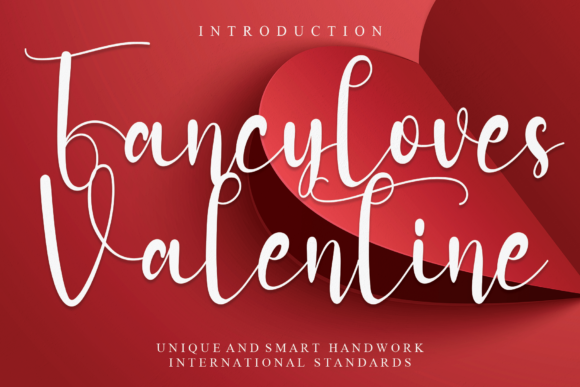
Unlock the Magic of Your Designs with the Fancyloves Valentine Font
You know that moment when you’re working on a project, and everything just clicks into place? The colors, the textures, the fonts – they all come together in perfect harmony. That’s exactly what happens when you add the Fancyloves Valentine Font to your design. This spectacular handwritten font is incredibly versatile, making it the perfect addition to any project.
Whether you’re a seasoned designer or just starting out, the Fancyloves Valentine Font is a valuable tool in your creative arsenal. Its unique, handwritten style adds a touch of elegance and sophistication to any design, elevating it to new heights. By incorporating this font into your work, you’ll be able to bring your ideas to life in a way that’s both beautiful and effective.
Fancyloves Valentine Font Key Features
- Font Family: Fancyloves Valentine – a unique, hand-drawn script font designed specifically for Valentine’s Day and romantic occasions.
- Character Set: Includes a wide range of characters, including uppercase and lowercase letters, numbers, and punctuation marks.
- Unique Characteristics: Features elegant, cursive strokes and ornate flourishes, making it perfect for creating romantic and whimsical designs.
Fancyloves Valentine Font Review
Overall, I think the Fancyloves Valentine Font is a lovely addition to any project that requires a touch of romance. It’s perfect for Valentine’s Day or any other occasion where you want to add a sense of whimsy and charm.
- ✨ The font is incredibly versatile and can be used for a variety of applications, from headings to body text.
- ✨ The ornate details and flourishes add a touch of elegance and sophistication, making it perfect for high-end designs.
- ✨ The font is highly customizable, allowing you to adjust the size, color, and spacing to fit your needs.
- ⚠️ The font may be too ornate for some designs, and the intricate details may get lost or look cluttered.
- ⚠️ The font may not be suitable for small text sizes, as the details may become too small to read.
Overall, I think the Fancyloves Valentine Font is a great choice for designers who want to add a touch of romance and whimsy to their projects. With a little creativity and experimentation, you can create some truly stunning designs with this font.
To get the most out of Fancyloves Valentine Font, try the following:
- Combine it with bold or italic text for added emphasis.
- Use it for headings or titles to create a romantic atmosphere.
- Experiment with different font sizes and colors to achieve a unique look.
Alternatives to Fancyloves Valentine Font
Lato is a modern sans-serif font that is highly legible and versatile. It is ideal for use in body text, headings, and titles, making it a great alternative to Fancyloves Valentine Font for designers who want a clean and elegant look. Lato is a more formal and professional font compared to Fancyloves Valentine Font, which is more cursive and romantic.
Playfair Display is an elegant and luxurious serif font that is perfect for use in high-end designs, such as wedding invitations, luxury branding, and special occasion graphics. It is more ornate and decorative than Fancyloves Valentine Font, making it a better choice for designers who want to add a touch of sophistication and glamour to their designs.
The recommended font size for Fancyloves Valentine Font is between 12pt and 24pt. However, this may vary depending on the specific design application and desired visual effect. Experiment with different font sizes to find the optimal look for your design.
Q: Can I customize the Fancyloves Valentine Font?
Yes, the Fancyloves Valentine Font is fully editable, allowing designers to customize the font’s appearance and behavior. However, please note that any customizations may affect the font’s compatibility with certain software applications or operating systems.